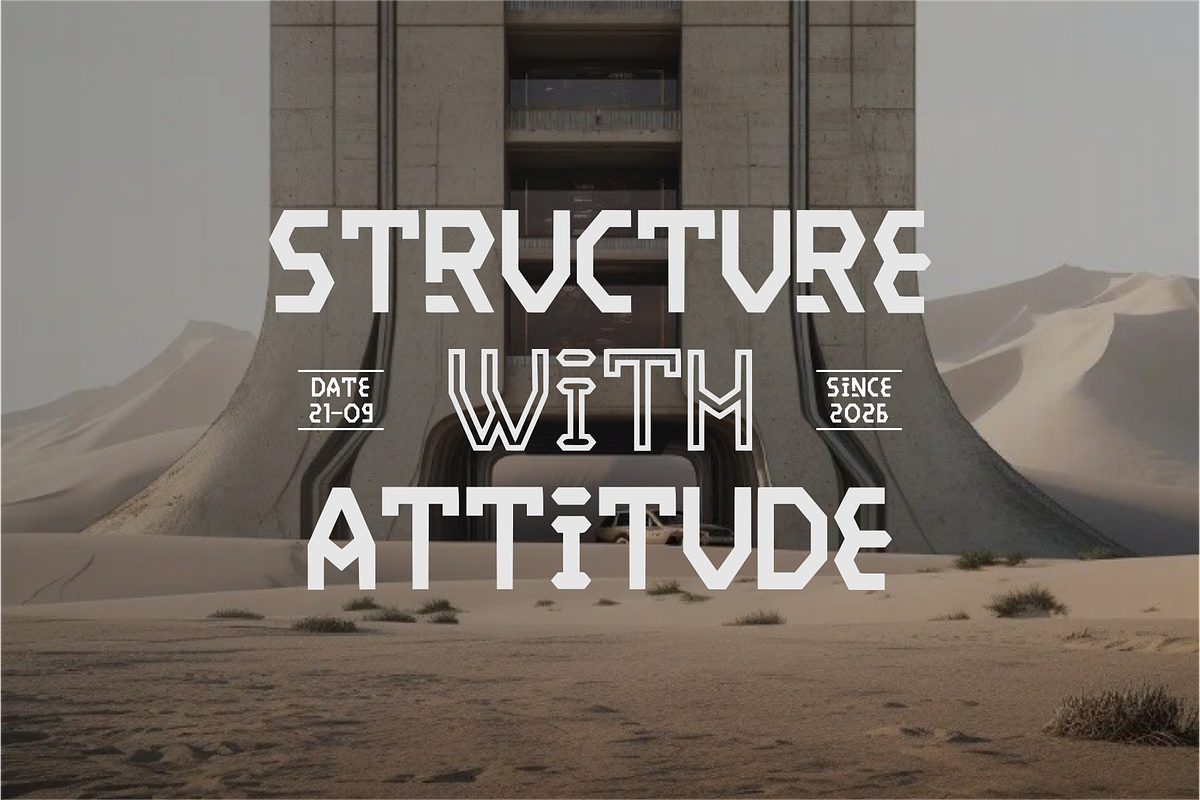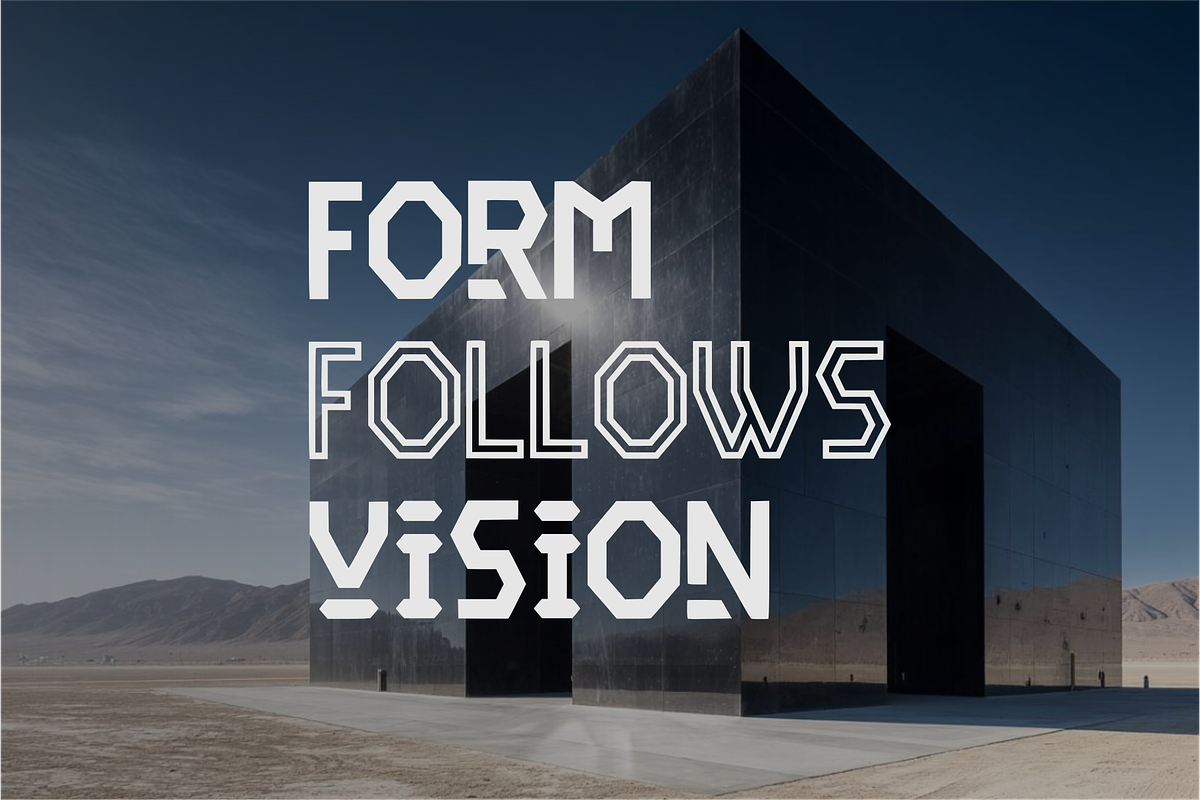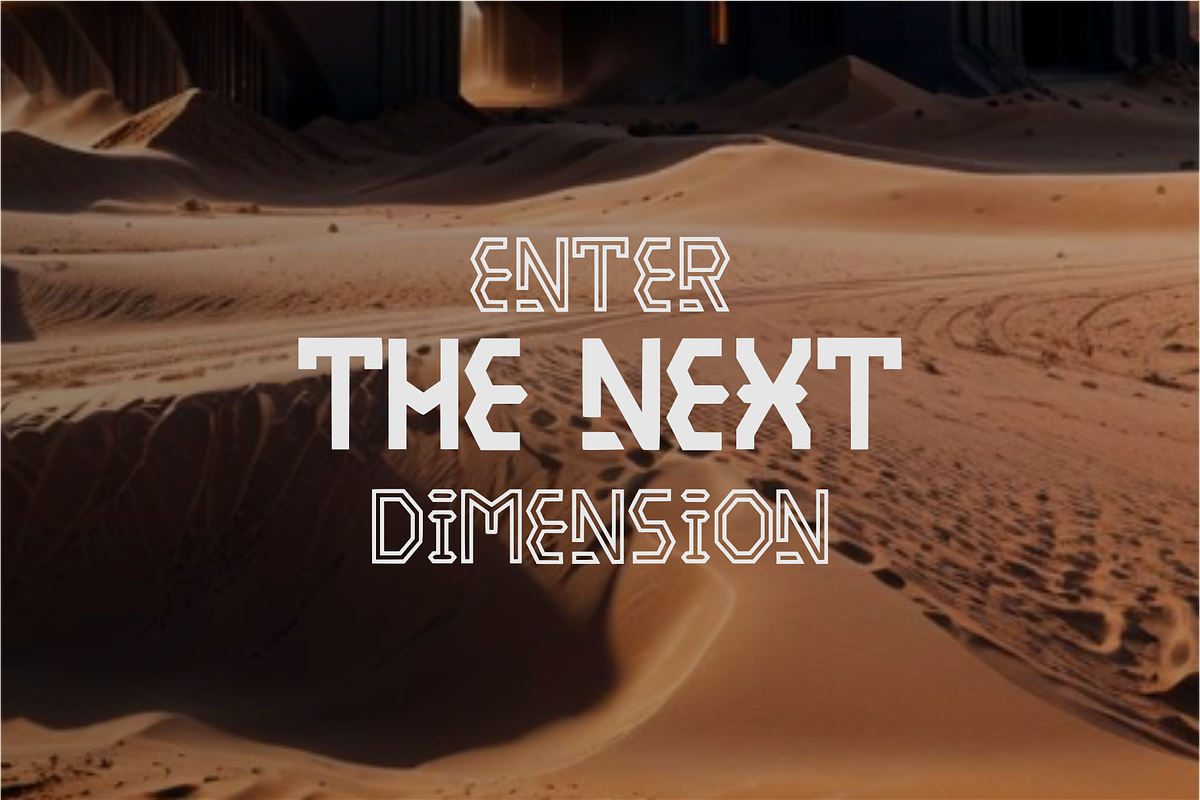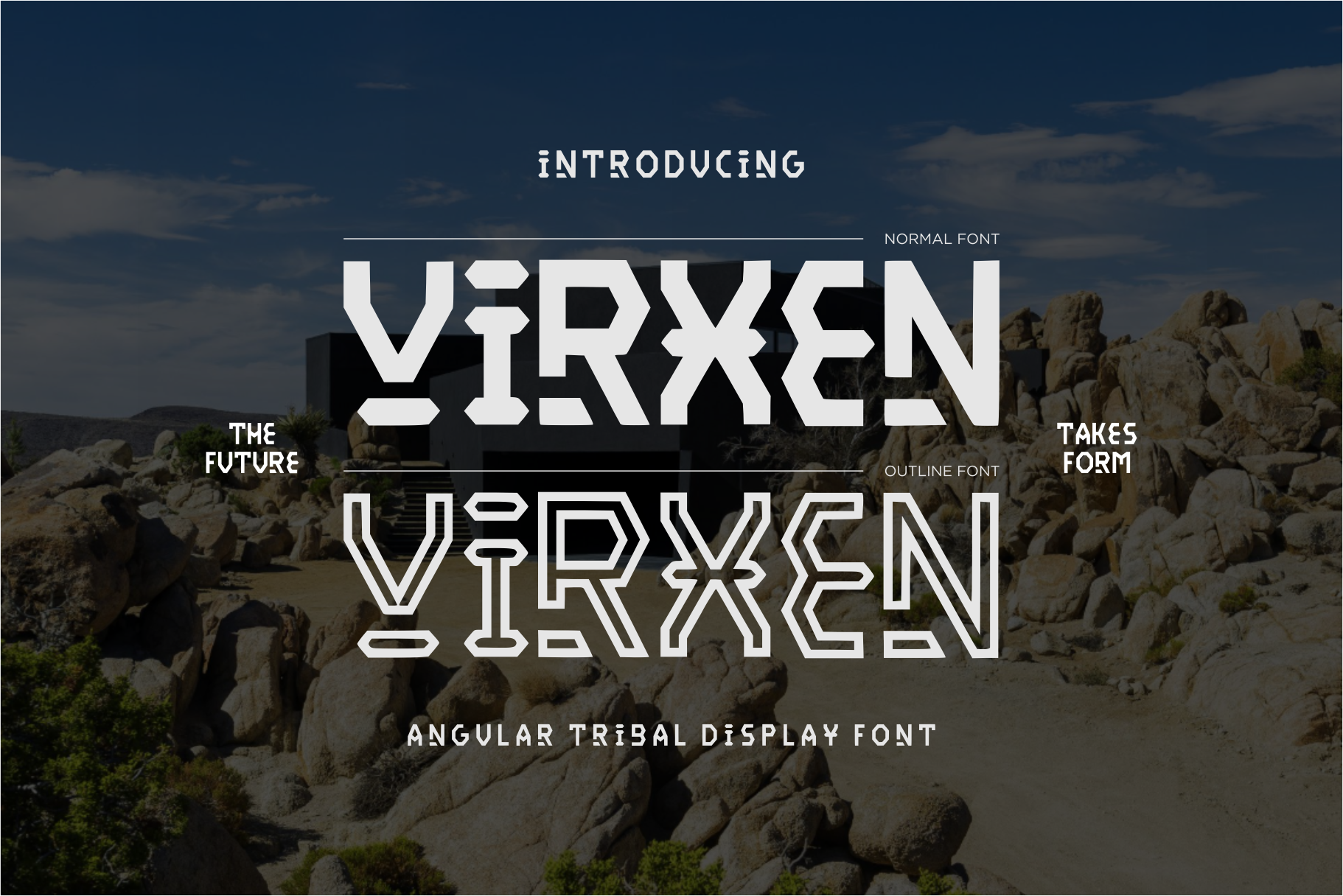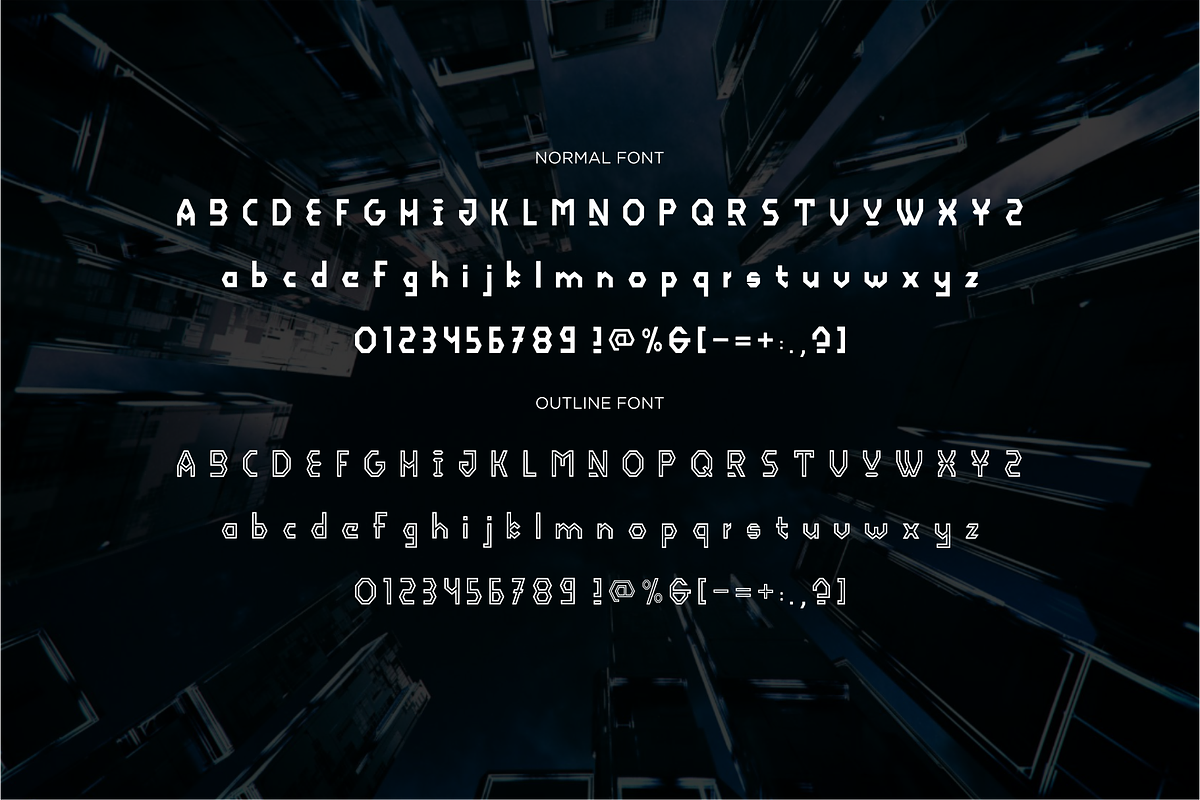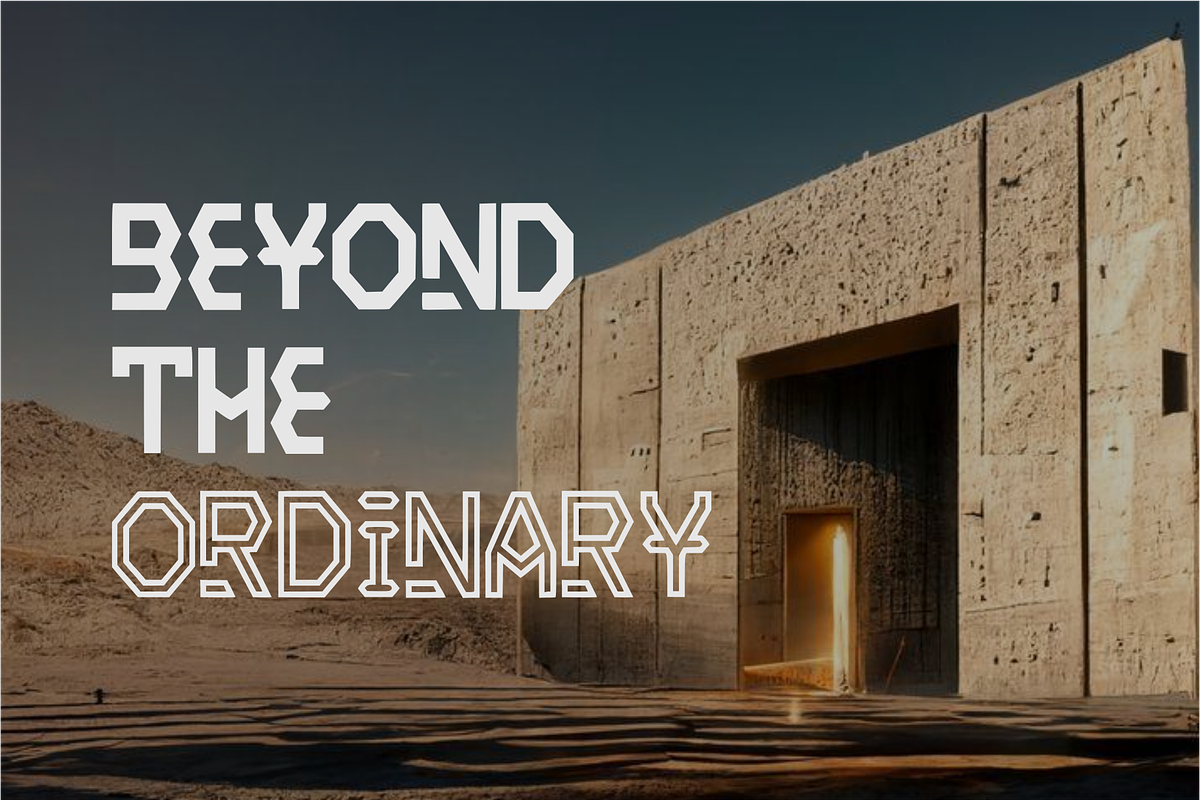
VIRXEN — Angular Tribal Display Font
VIRXEN is a bold and experimental Angular Tribal Display Font designed with sharp geometric forms, distinctive cuts, and a futuristic tribal character. Its strong angular structure creates a powerful visual presence while maintaining an unconventional and highly recognizable style.
The font combines tribal-inspired shapes with modern geometric construction, making it ideal for designs that need an edgy, futuristic, and experimental aesthetic. VIRXEN also includes a striking outline style, giving designers additional flexibility for layered typography, posters, branding, and display compositions.
Perfect for posters, logos, album artwork, streetwear, gaming graphics, branding, headlines, apparel, merchandise, editorial designs, and futuristic visual identities.
Bold angular letterforms
Experimental tribal-inspired design
Futuristic geometric appearance
Distinctive sharp cuts and details
Strong display presence
Normal and outline styles
Ideal for large-scale typography
Suitable for modern and alternative branding
VIRXEN is made for designers who want typography that feels bold, unconventional, futuristic, and visually powerful.